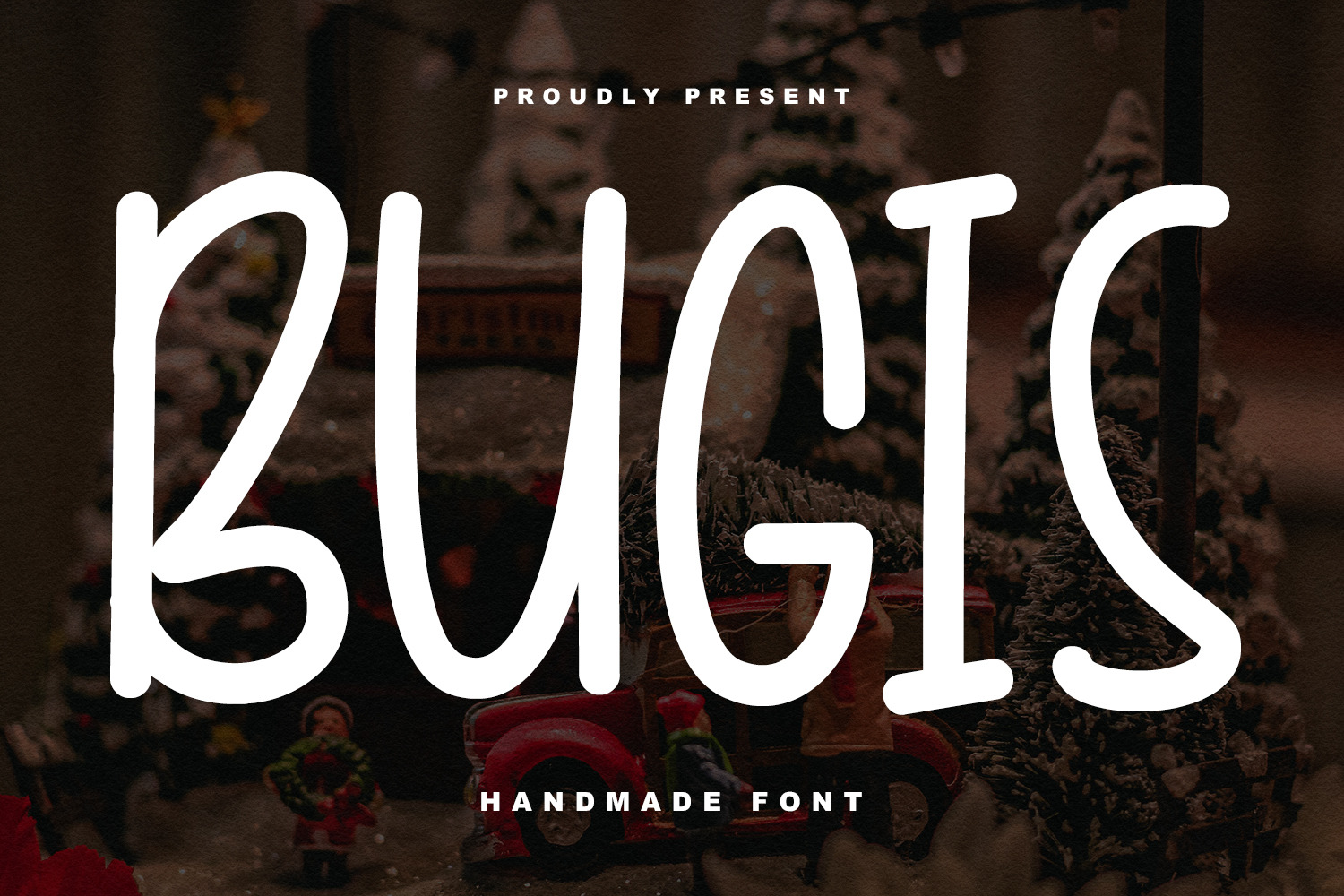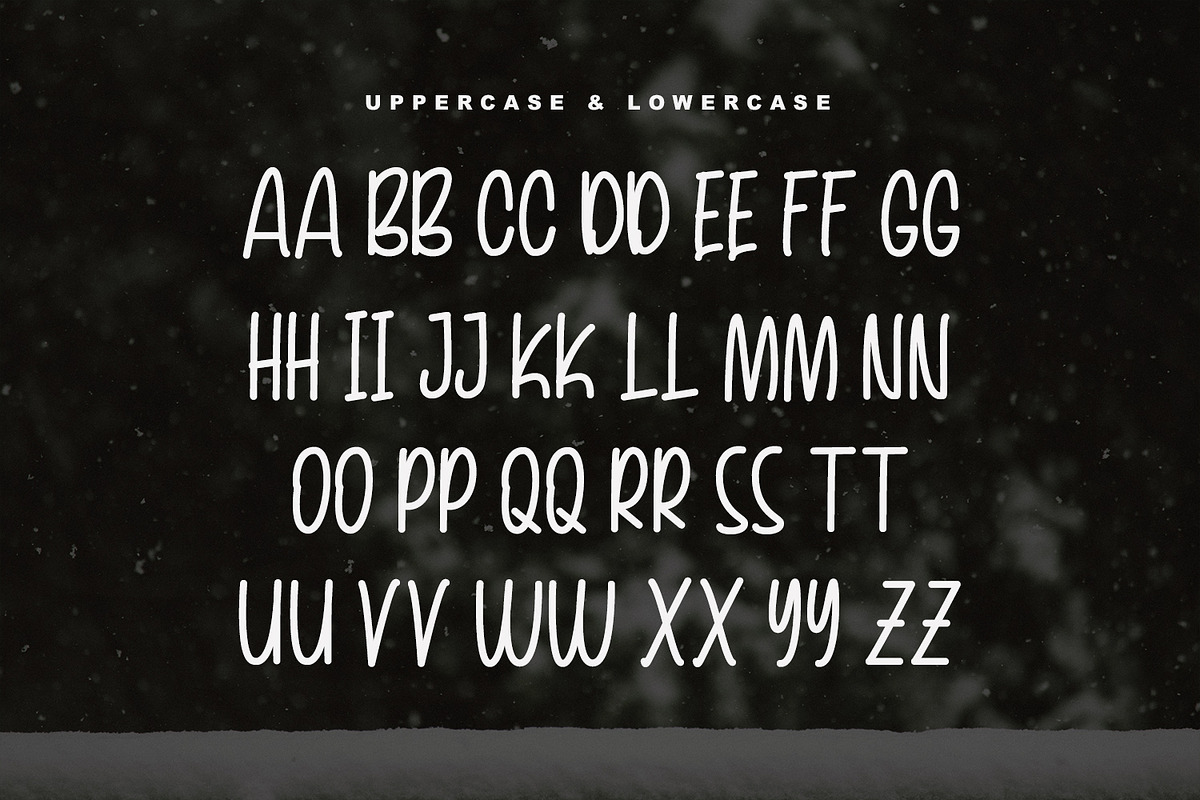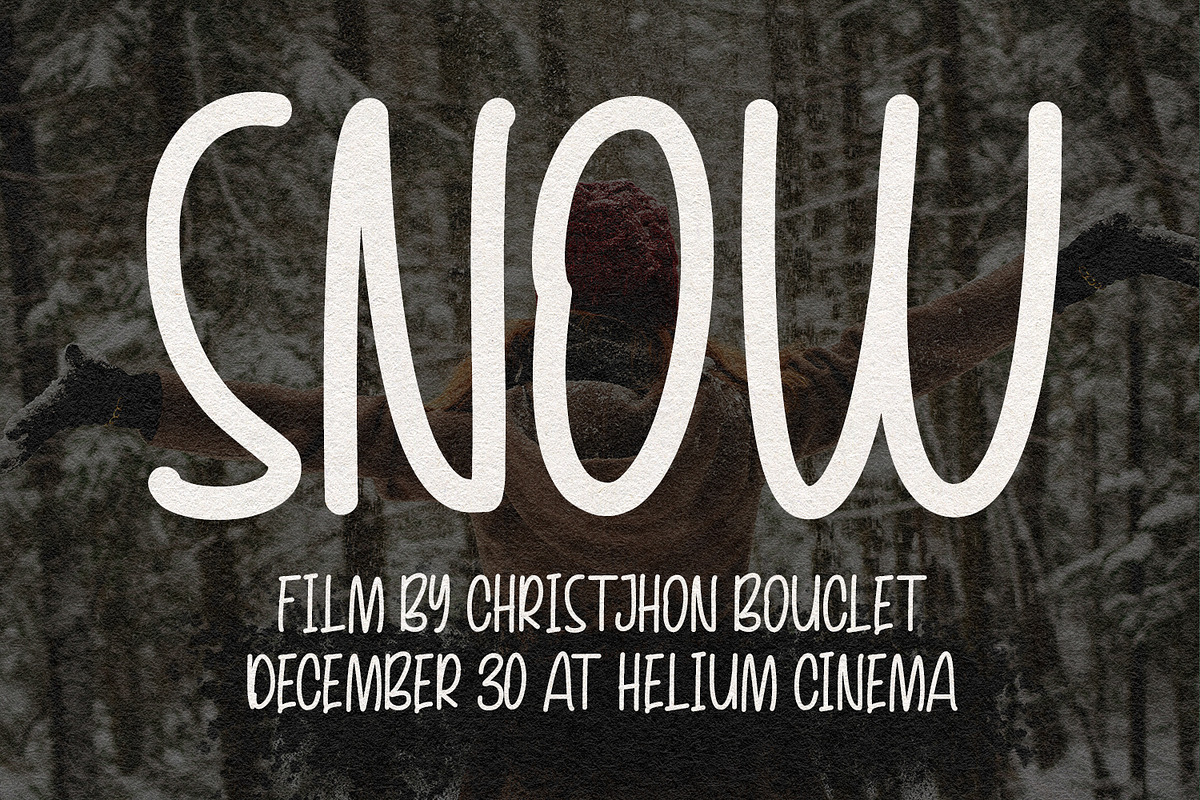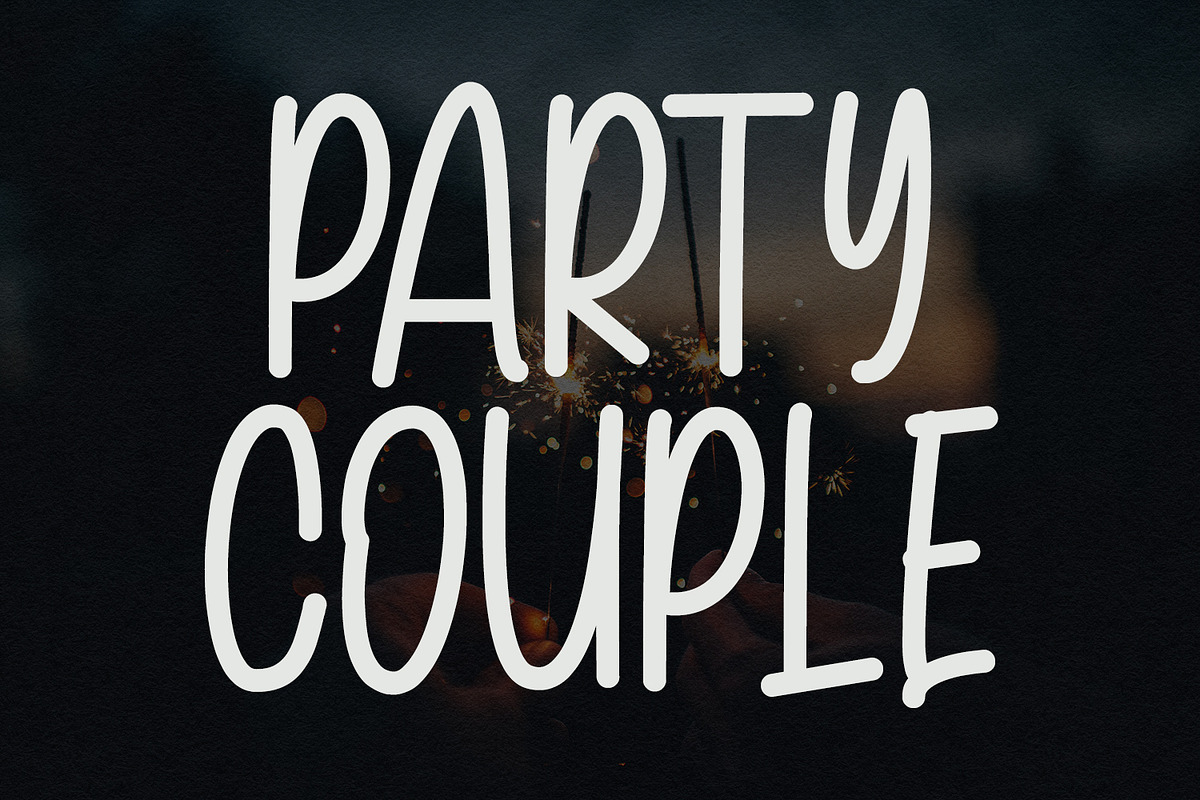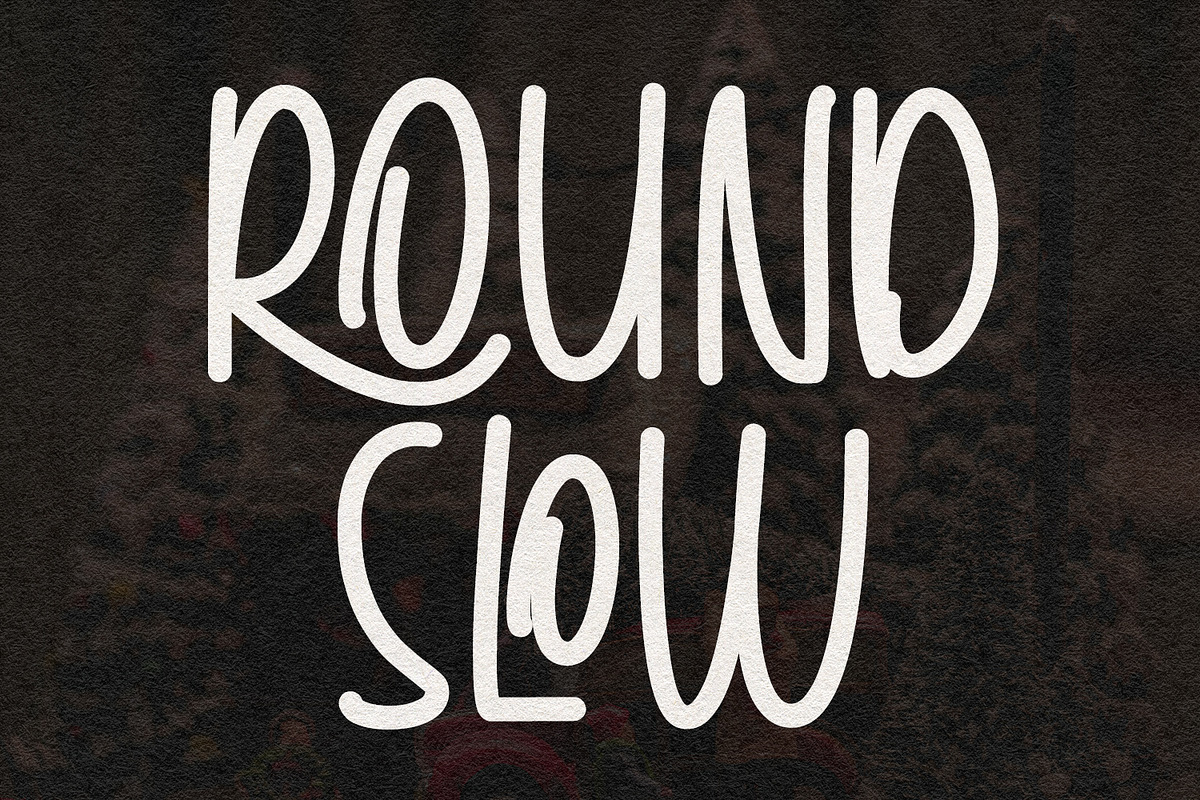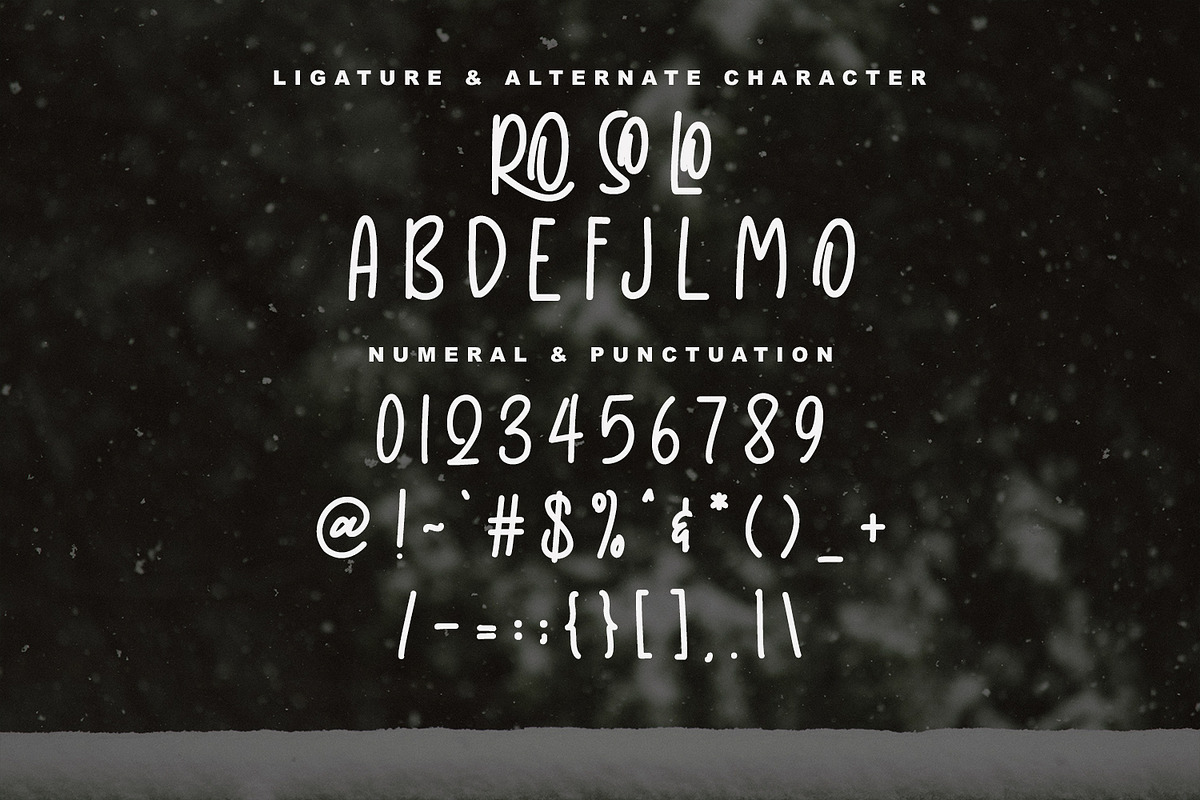
Bugis Handmade Font
Bugis handmade display font. Heavy stroke, fun character with a bit of ligatures. To give you an extra creative work. Bugis handmade display font support multilingual more than 100+ language. This font is good for logo design, Social media, Movie Titles, Books Titles, a short text even a long text letter and good for your secondary text font with script or serif. Make a stunning work with Bugis handmade display font.